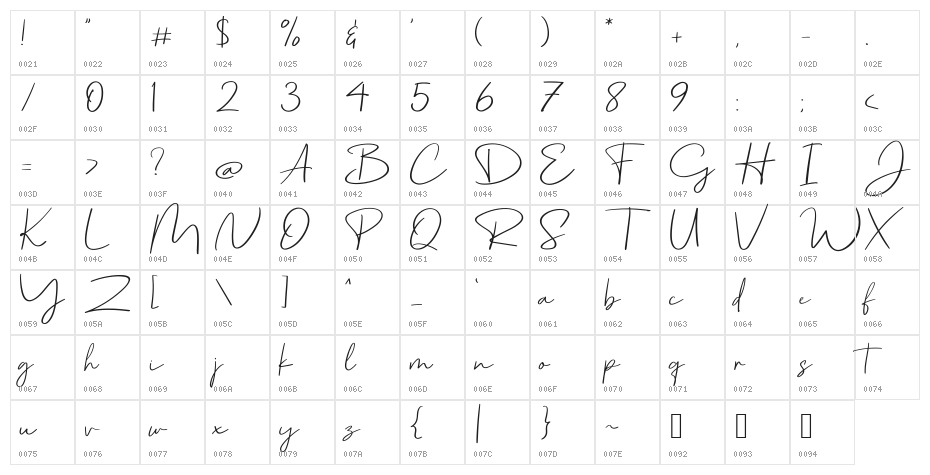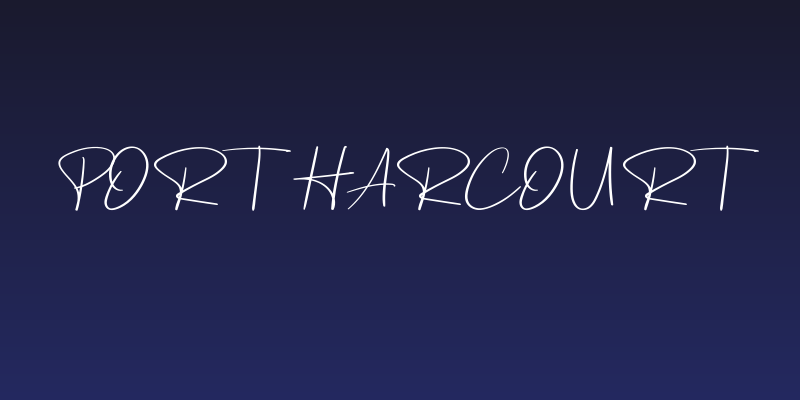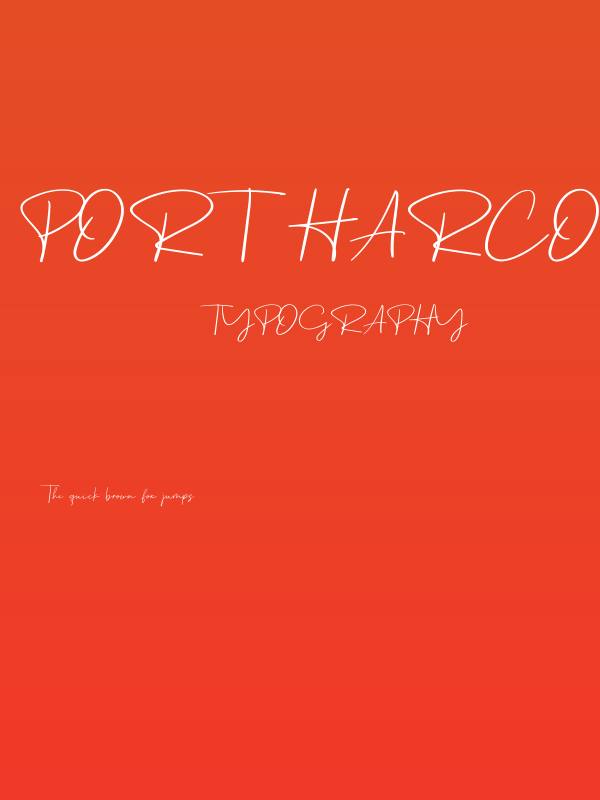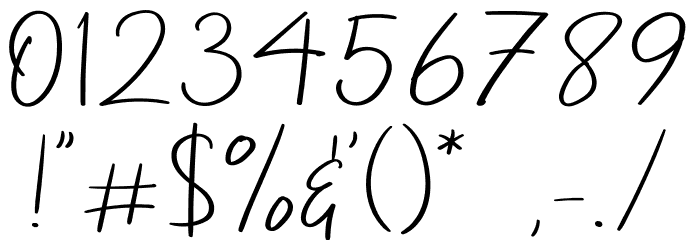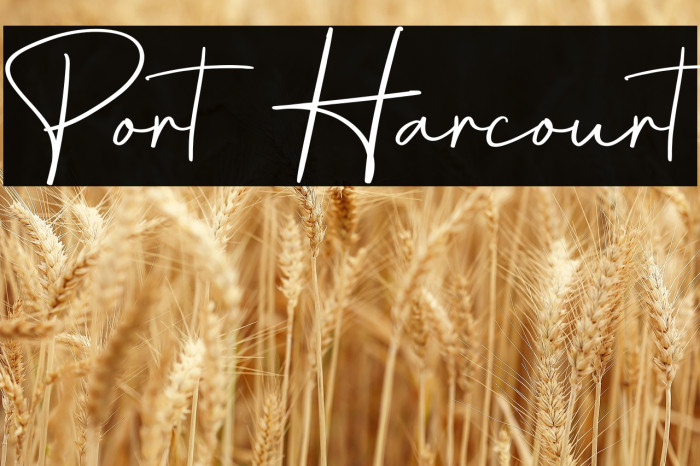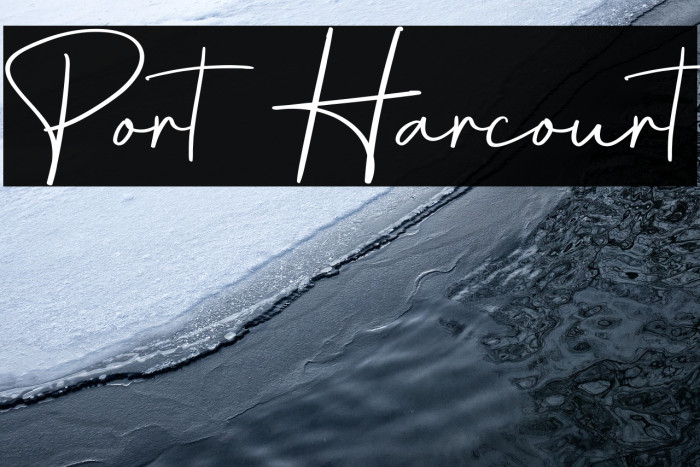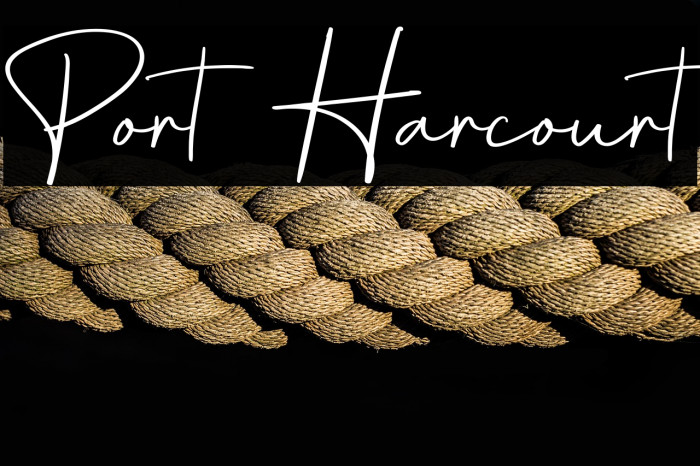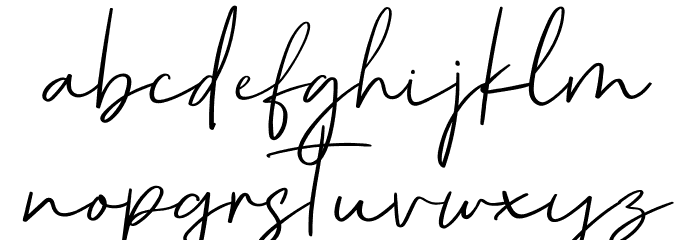
Port Harcourt Font
Port Harcourt Description
This font features a flowing, handwritten style that exudes elegance and a personal touch. The characters are crafted with a smooth, cursive flair, showcasing a natural, organic movement. The uppercase letters are slightly more structured, while the lowercase letters exhibit a more fluid and connected form. The numerals maintain the same handwritten aesthetic, ensuring consistency across all characters. Special characters are included, maintaining the same stylistic approach. This font is ideal for projects that require a personal, intimate feel, such as invitations, greeting cards, or branding materials that aim to convey warmth and approachability.
| Overall Style | Elegant, Personal, Organic |
| Use Case | Invitations, Greeting cards, Personal branding |
| Proposed Projects | Ideal for invitations, greeting cards, personal branding, and creative projects requiring a personal touch. |